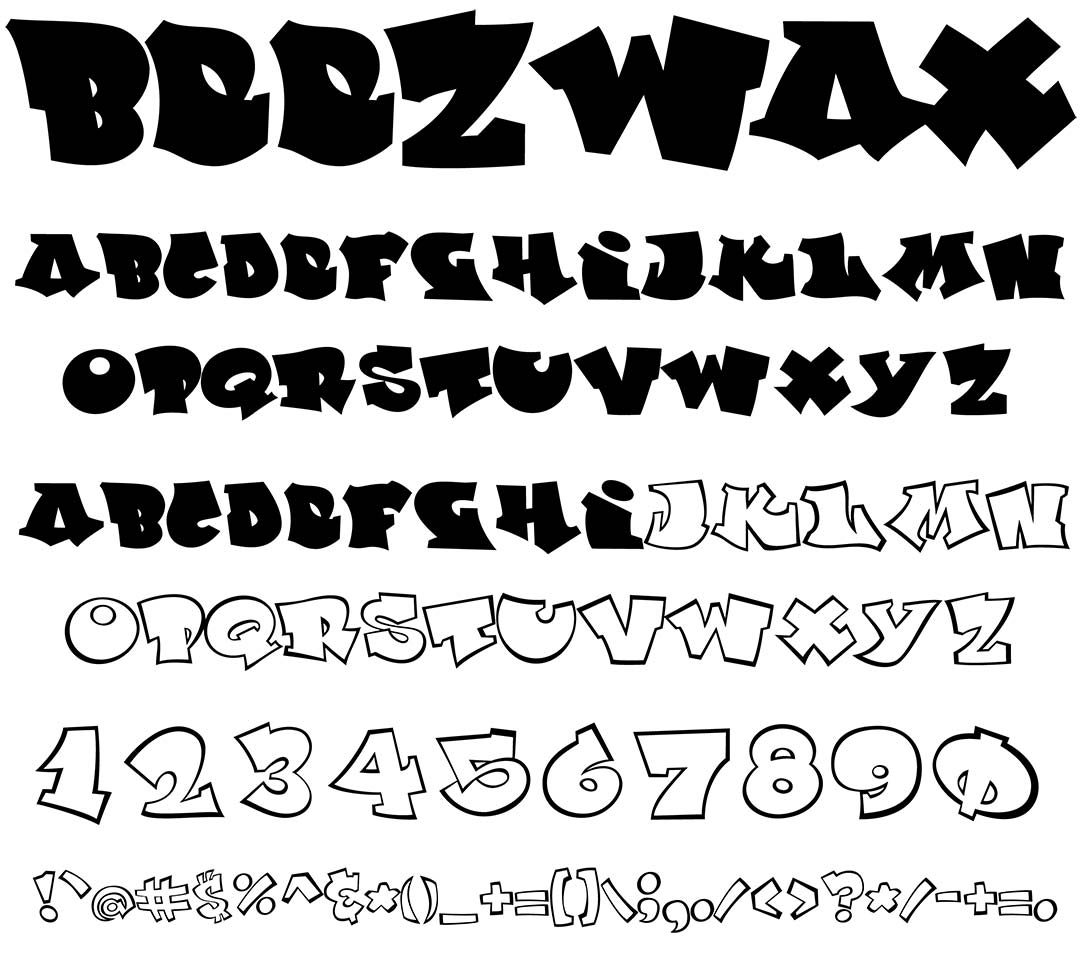
BeezWax
BeezWax Graffiti Alphabet
BeezWax Graffiti Font Family
A fun & friendly graff style created especially for the Graffiti Fonts collection The wide letters provide lots of space to work in fills & details Beezwax works well with fat outlines in a simple flat style.